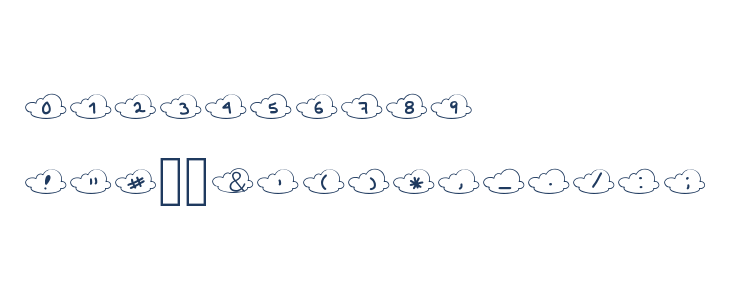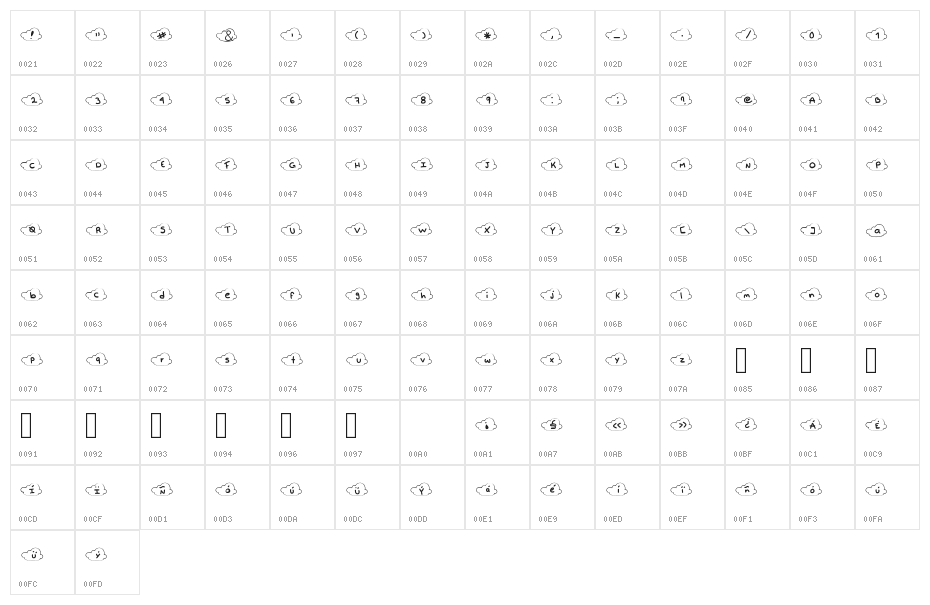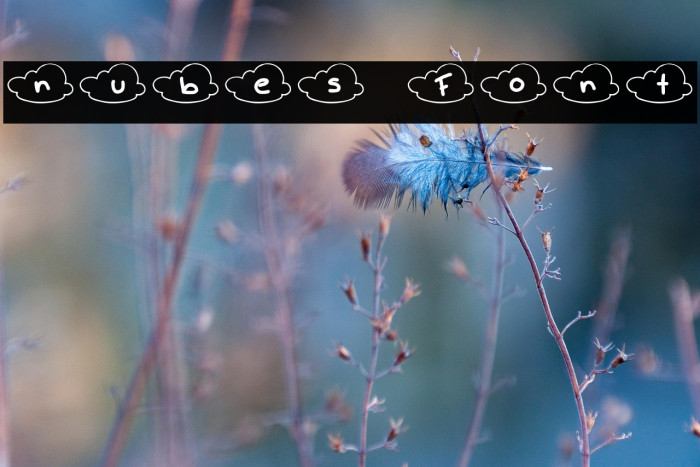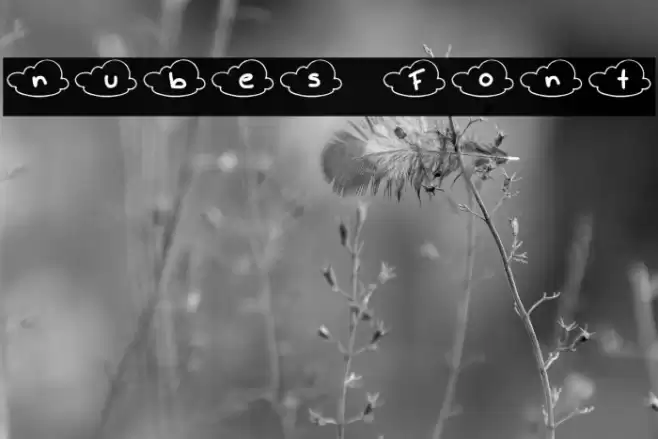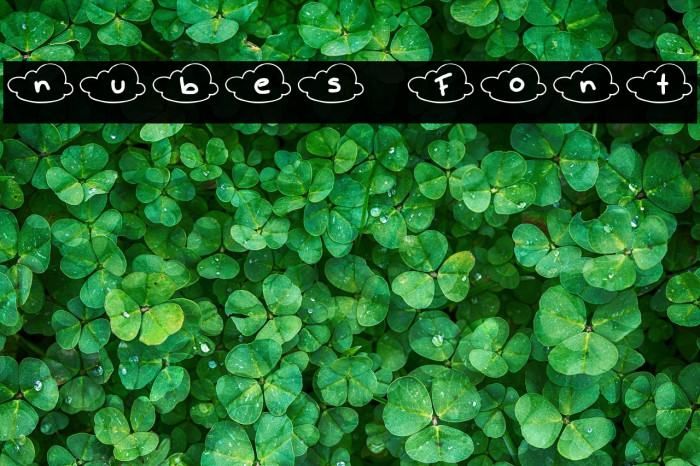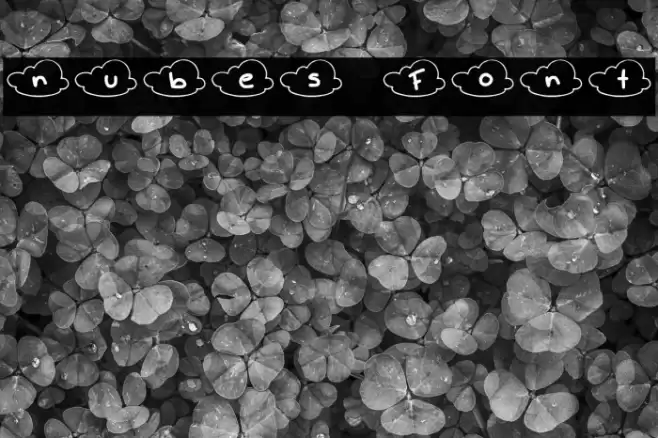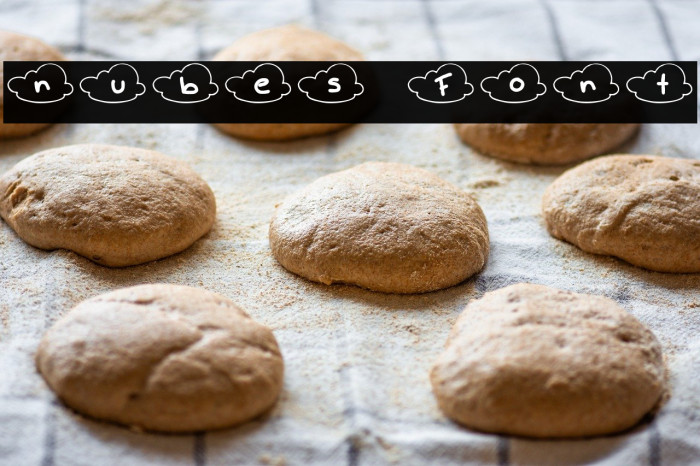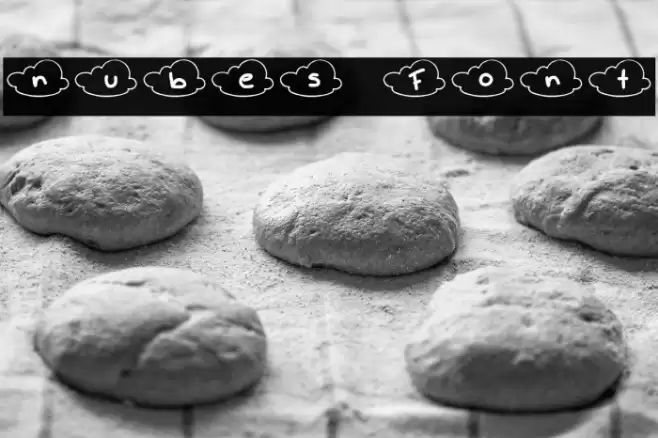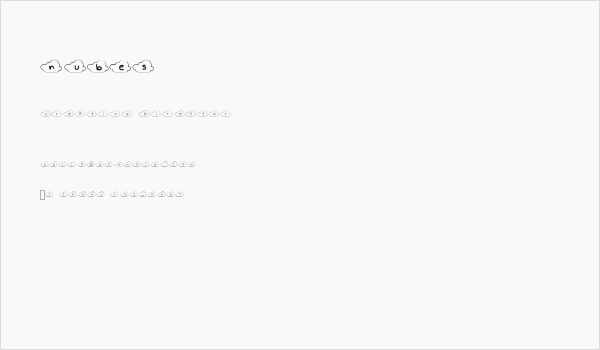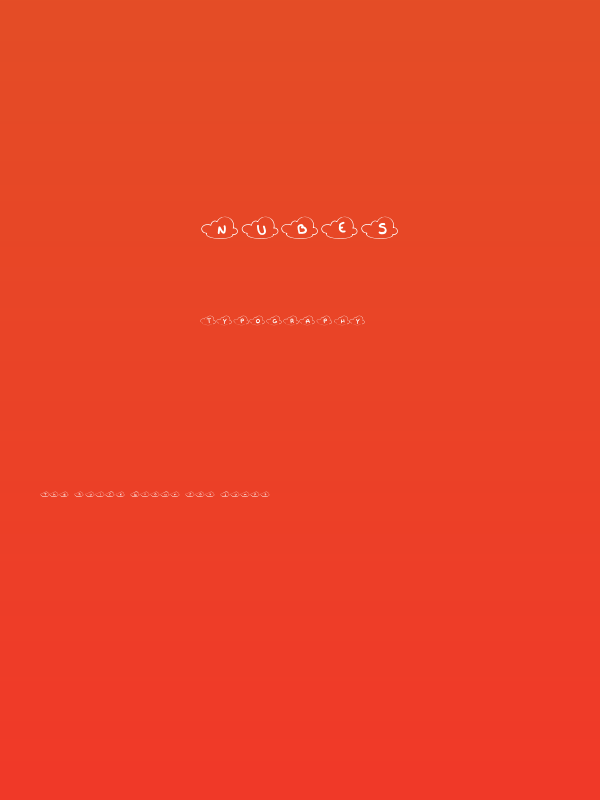
nubes Font
nubes Description
This playful and whimsical font features characters enclosed within fluffy cloud shapes, creating a lighthearted and cheerful aesthetic. The letters are rounded and bold, with a consistent stroke weight that adds to the font's approachable and friendly appearance. Each character is distinct and easily readable, making it suitable for a variety of creative applications. The numbers and special characters maintain the same cloud-enclosed style, ensuring a cohesive look across all text elements. This font is ideal for projects aimed at children or for any design that seeks to evoke a sense of fun and imagination.
| Overall Style | Whimsical |
| Proposed Projects | Children's books, playful invitations, greeting cards, educational materials, and creative branding. |